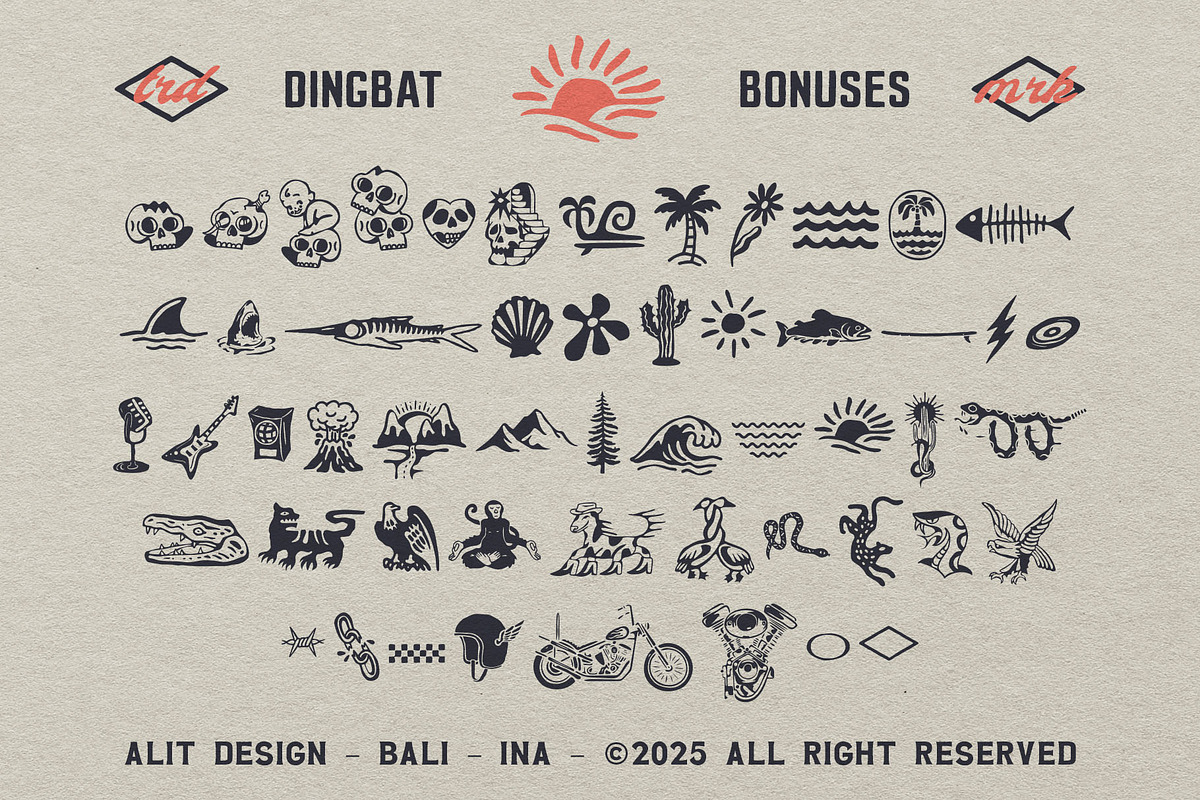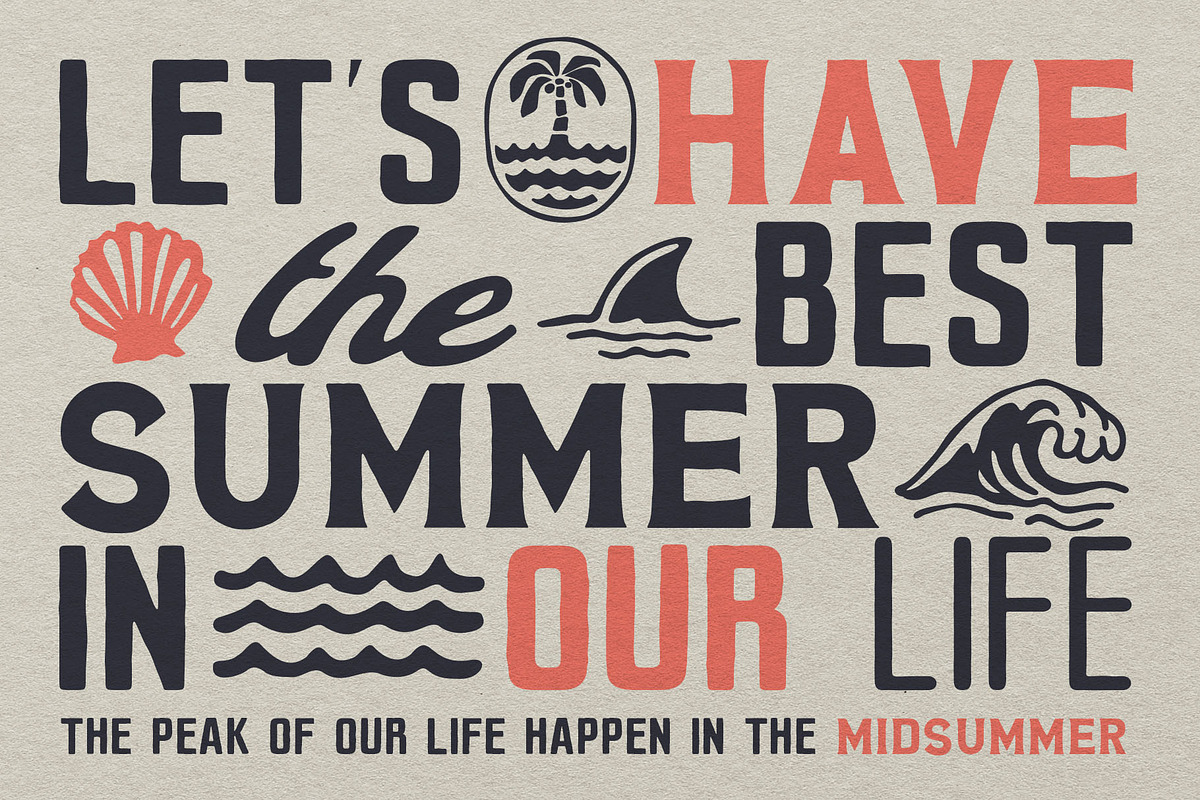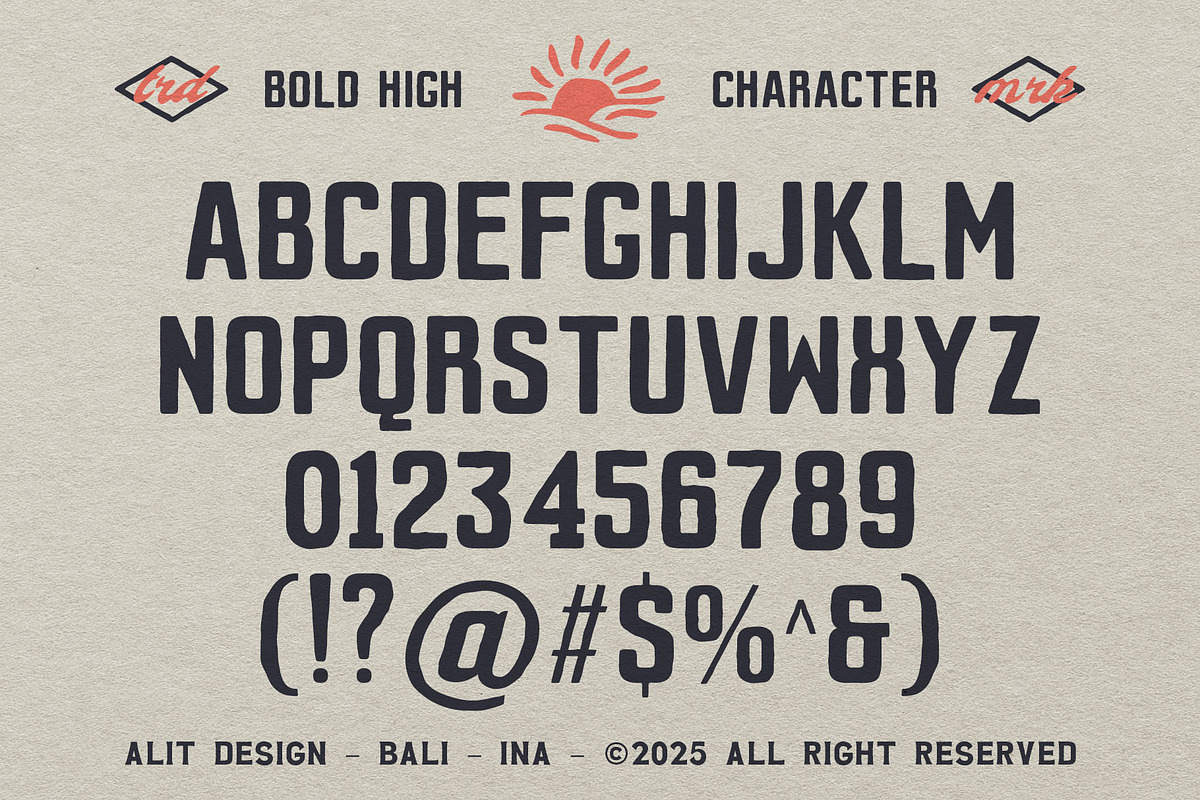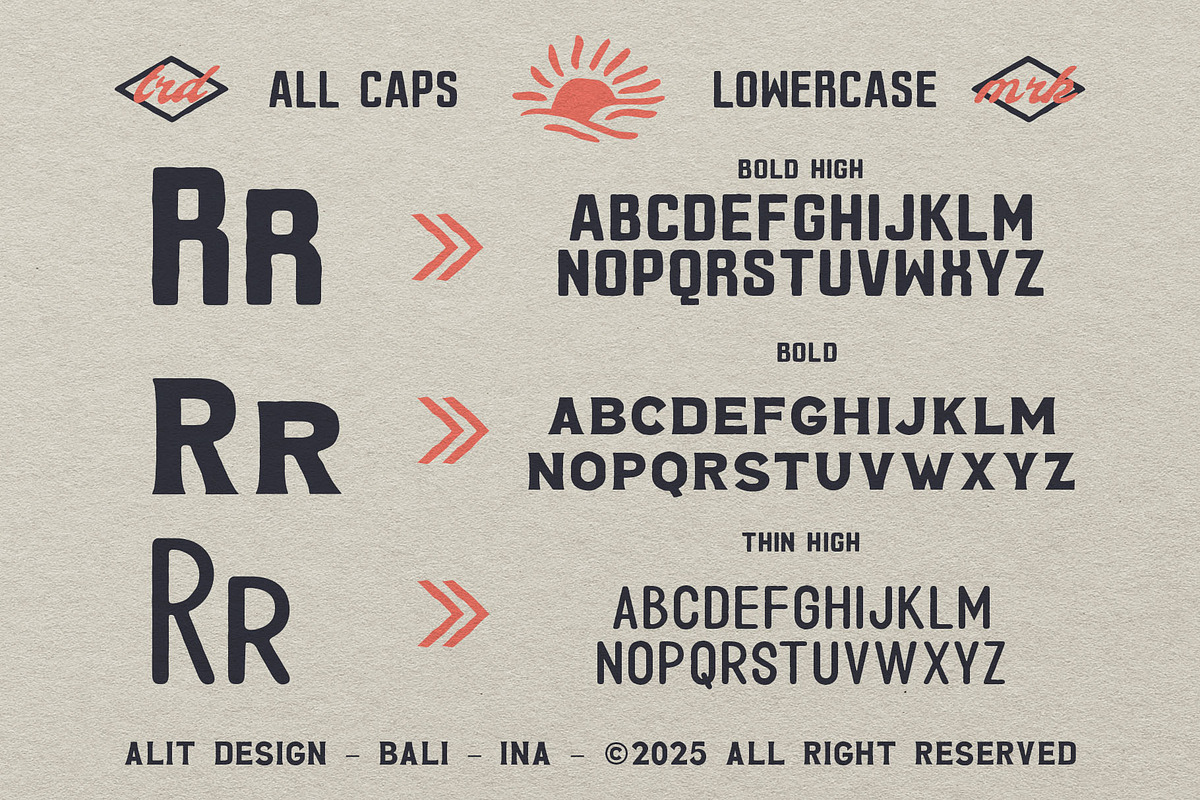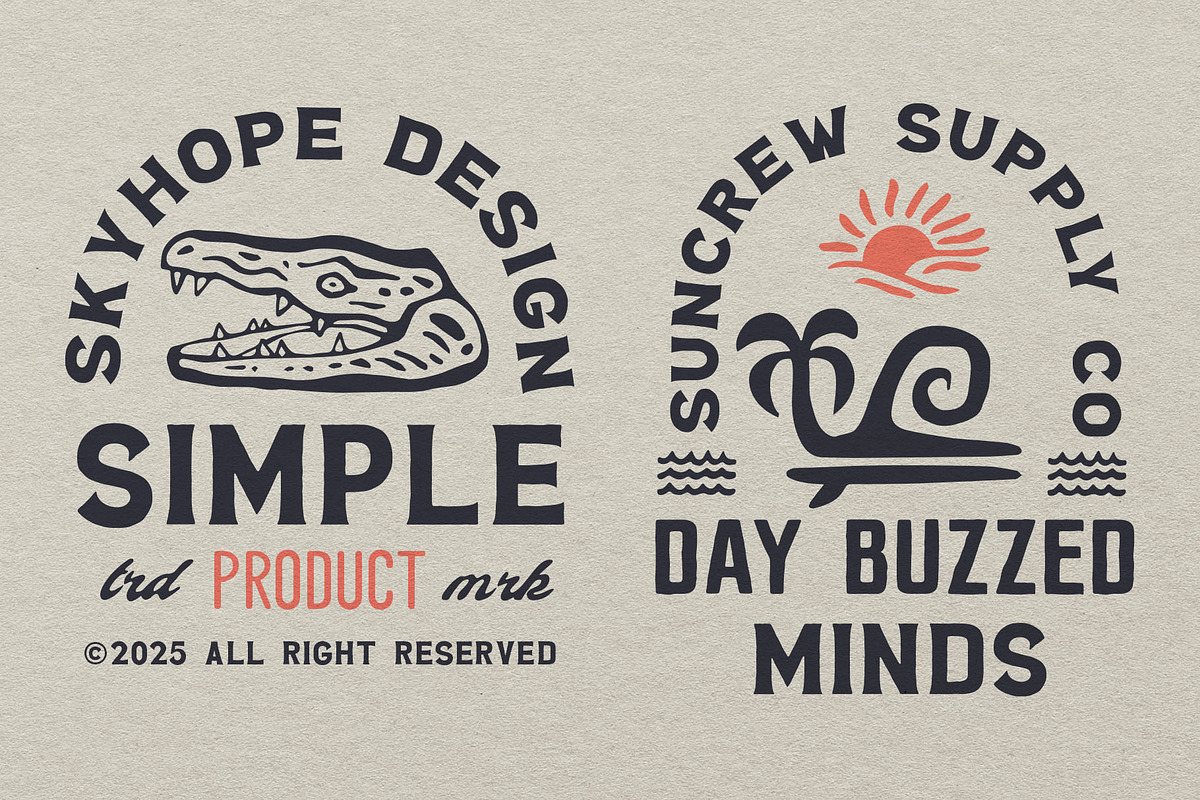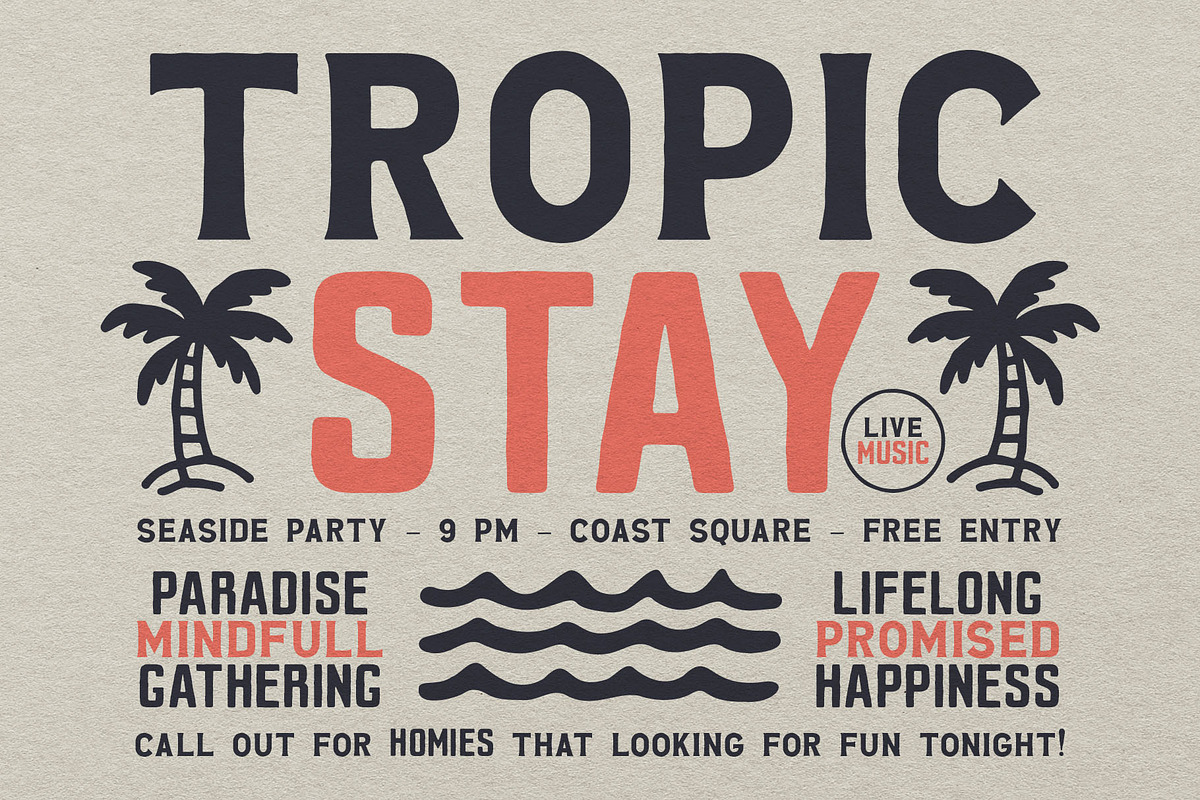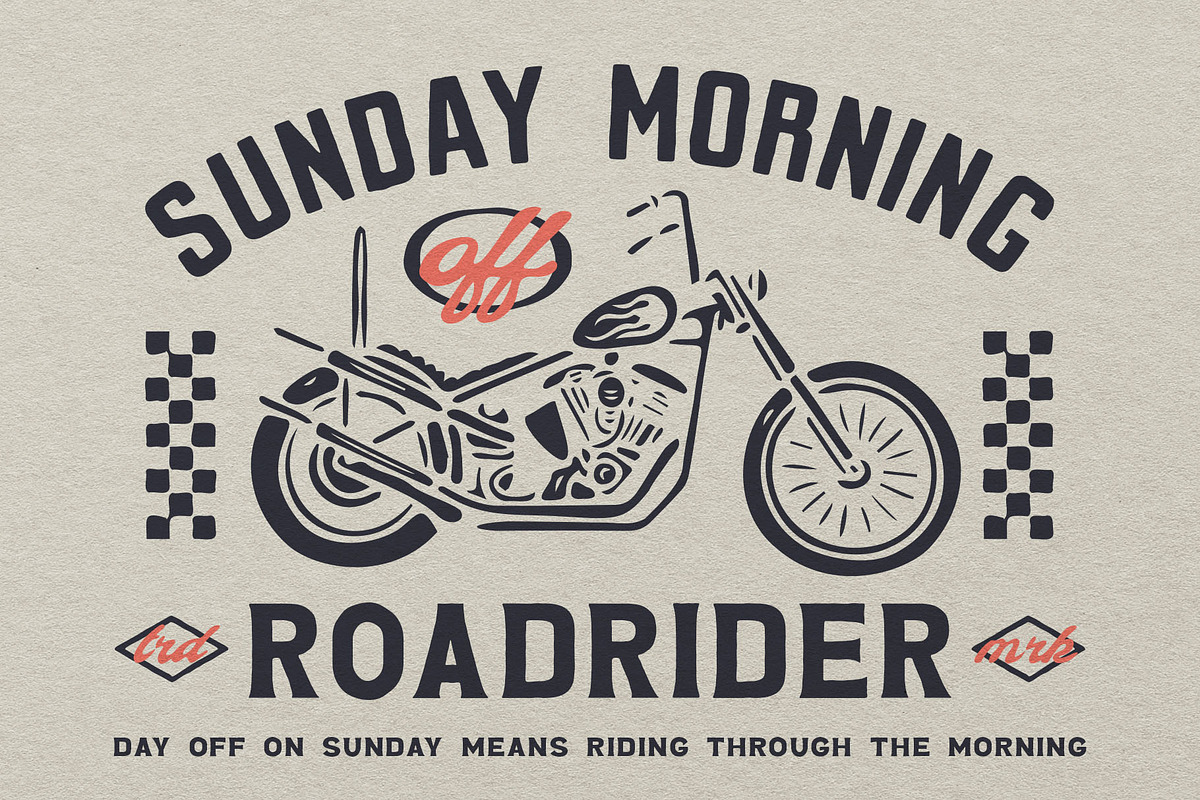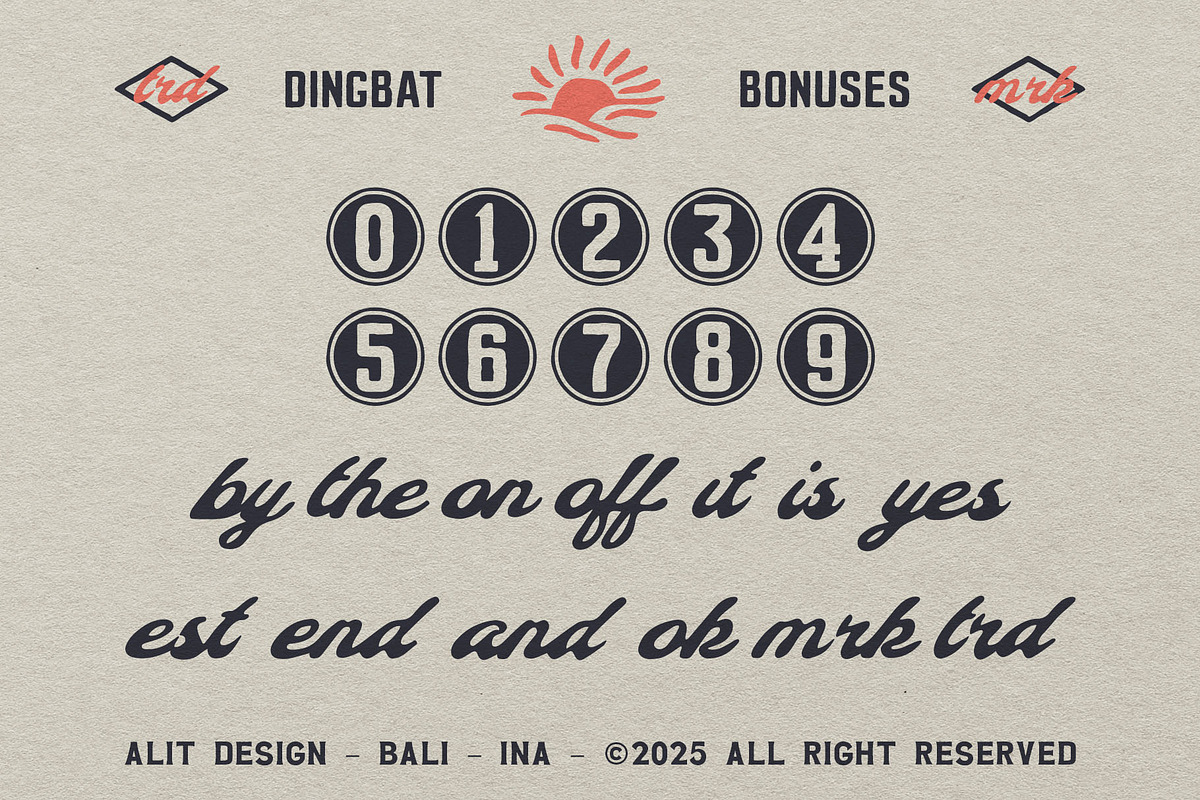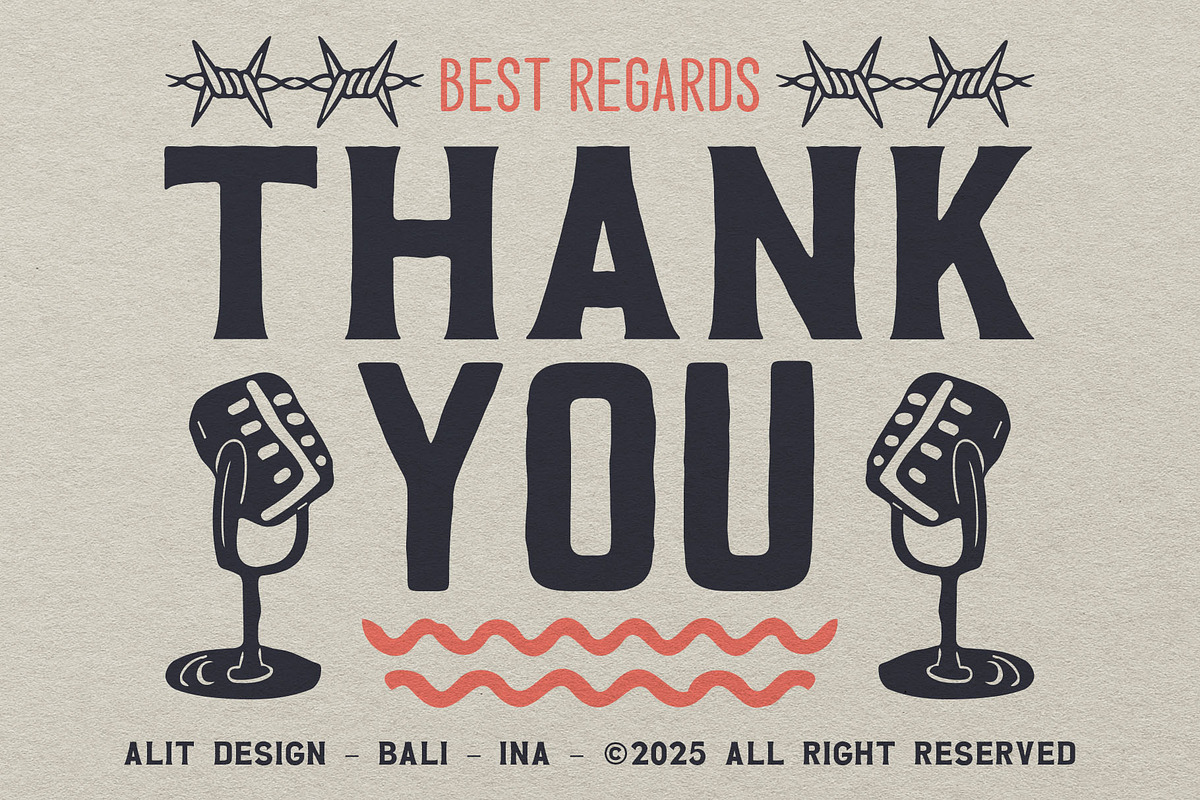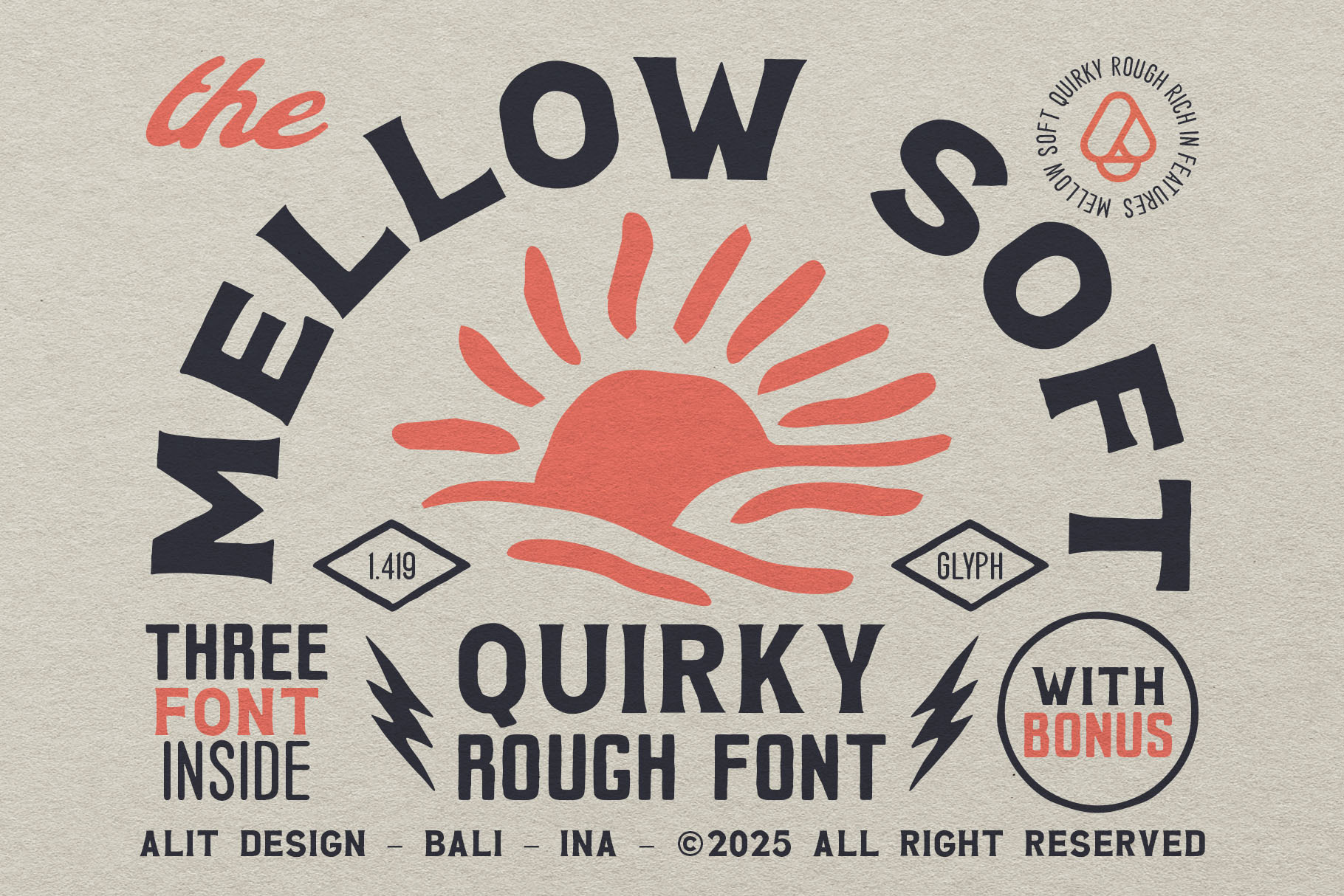
Mellow Soft Typeface
Mellow Soft Typeface | Quirky Rough & Vintage Font
Capture the endless summer vibe with a quirky, rough-textured font family perfect for adventure and nostalgia.
Introducing Mellow Soft Typeface, a font family that embodies the spirit of laid-back days, salty air, and rugged adventures. Inspired by vintage travel posters and retro surf culture, Mellow Soft brings a quirky, hand-drawn charm to your design toolkit.
This typeface isn't just about letters; it’s about texture. Each character is designed with a "rough stamp" finish, giving your work an instant organic, tactile feel that looks like it was printed on old paper. Whether you are designing for a surf brand, a coffee shop, or an outdoor apparel line, Mellow Soft delivers that authentic, perfectly imperfect look.
The Mellow Soft Family includes 3 distinct styles plus a bonus:
- Mellow Soft Bold: The core of the family—thick, sturdy, and impactful.
- Mellow Soft Bold High: A taller variation for when you need to fit more character into a narrow space without losing impact.
- Mellow Soft Thin High: A lighter, taller version that pairs perfectly with the bold weights for hierarchy and contrast.
- Mellow Soft Dingbat (Bonus): A comprehensive collection of hand-drawn illustrations (skulls, waves, palm trees, animals, and badge shapes) to complement your typography.
- Merchandise & Clothing: T-shirts, hoodies, and caps look incredible with this textured font.
- Branding & Logos: Create logos that feel established and friendly.
- Packaging Design: Coffee bags, food labels, and craft beer cans.
- Social Media: Eye-catching quotes and headers.
- Event Posters: Music festivals, surf contests, or pop-up markets.
- Uppercase & Lowercase characters
- Authentic "Rough Stamp" Texture
Bring the warmth of the sun and the grit of the sand to your next project with Mellow Soft.